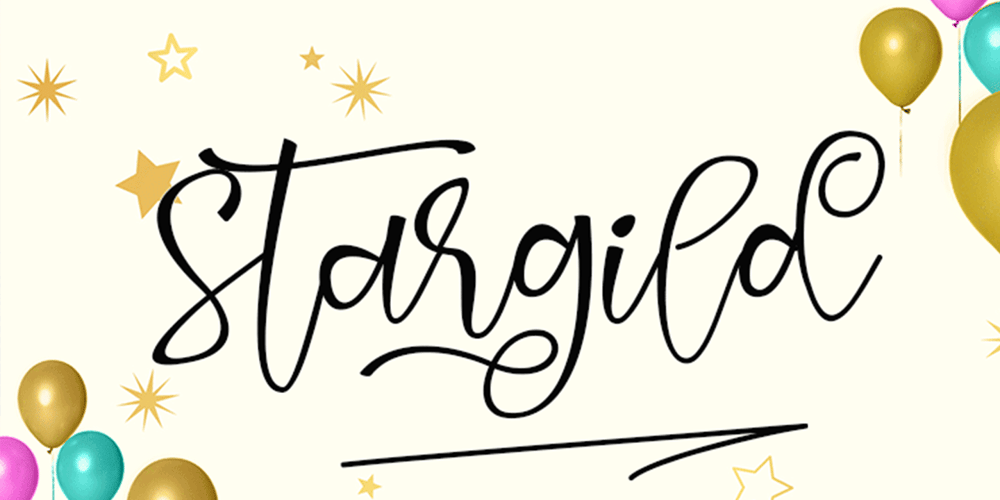
Stargild
Stargild font
Stargild Font Family was designed by Muhammad Akbar and published by Sinfa. Stargild contains 1 styles and family package options. Stargild is the perfect typeface for any type of your project with alternative fonts in both lowercase and uppercase and several types of underlines, such as advertisements, branding, quotes, wedding designs, graphic design, logos for online or offline businesses, photography, and more. -other. Make your business more beautiful!